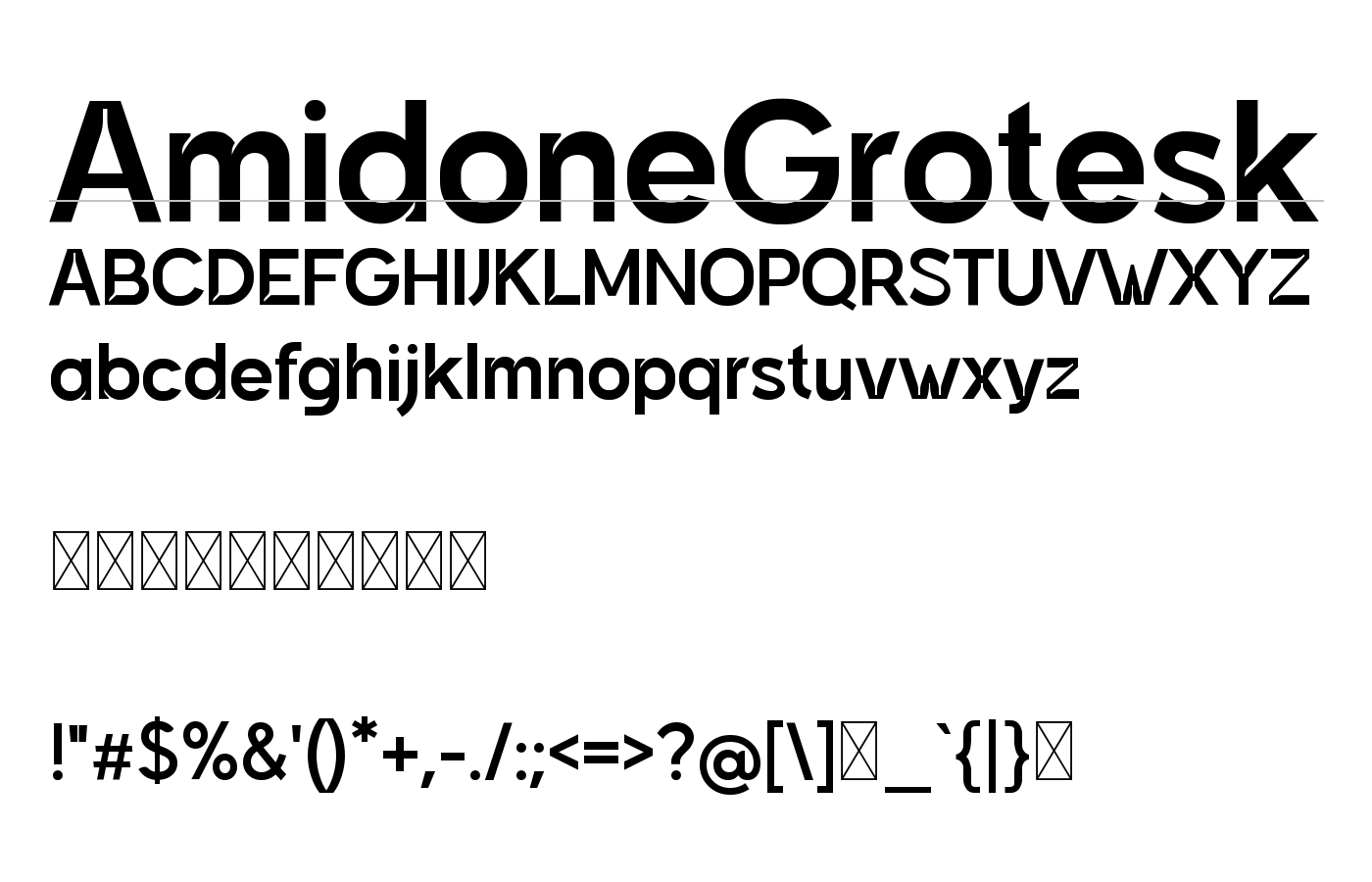
AmidoneGrotesk is a bold, geometric sans-serif font with a strong, modern character and clean lines, offering a high x-height and well-balanced letterforms that enhance readability. Its distinctive shapes, such as the sharp angles on letters like A and K, give it a contemporary and confident feel, making it ideal for branding, headlines, and editorial design where a bold, dynamic impact is needed. This font works well in digital and print projects that require a sleek, professional yet approachable look.
AmidoneGrotesk Font
About AmidoneGrotesk Font